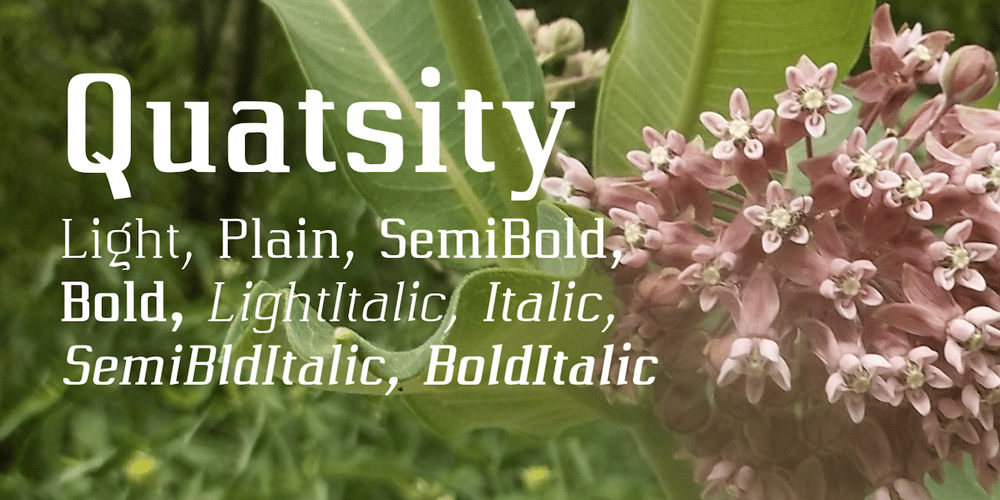
Quatsity Font Family was designed by Robert Schenk and published by Ingrimayne Type. Quatsity contains 8 styles and family package options. Quatsity is a squarish or boxy serifed font with rounded corners. Quatsity is is suitable for titles or signage and legible enough for small blocks of text.Quatsity-Light was constructed in 1995 by blending two very different faces, a typeface very similar to Kwersity (with low contrast) and one similar to Qwatick (with high contrast). The other seven styles were added in 2020.